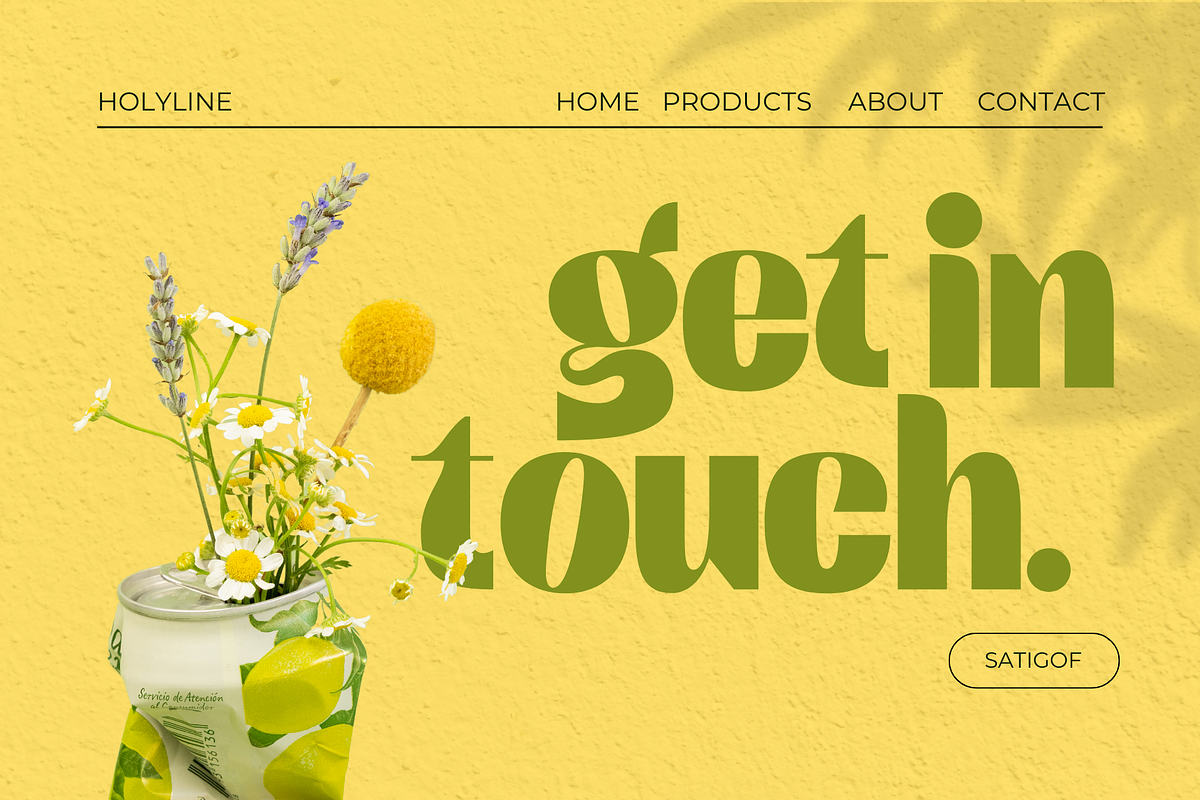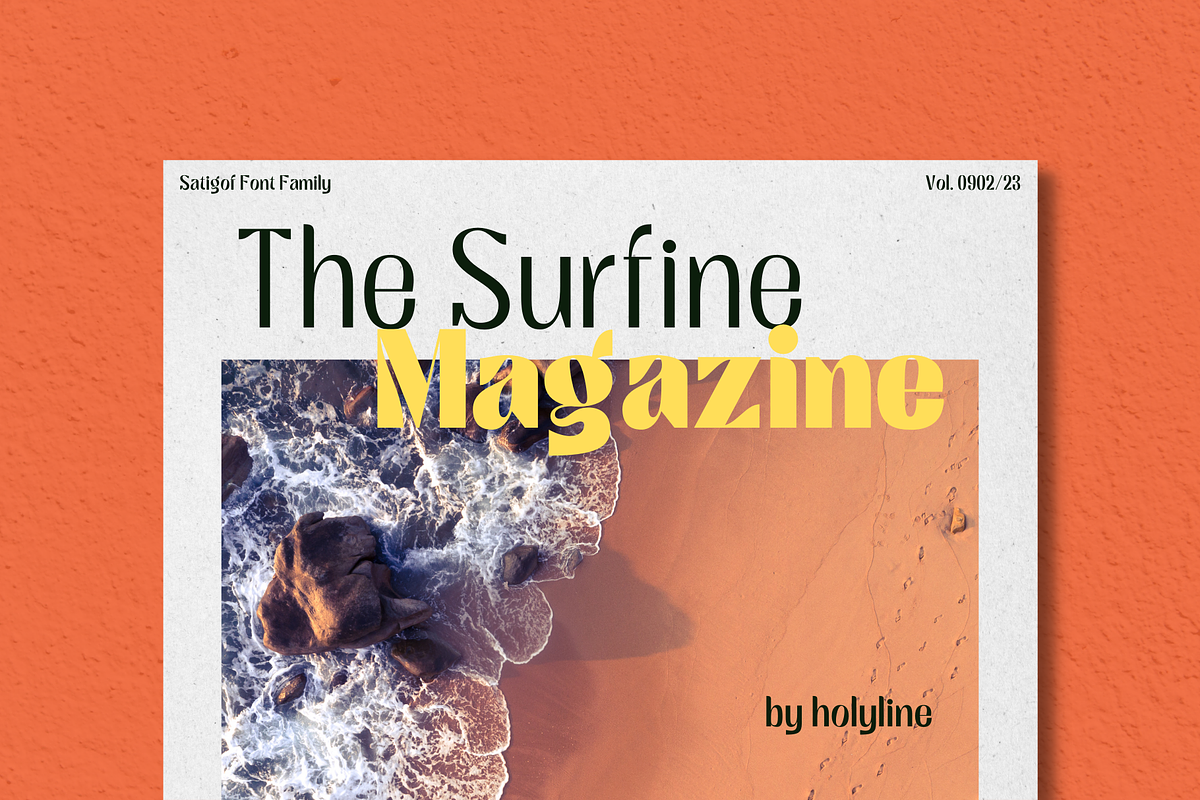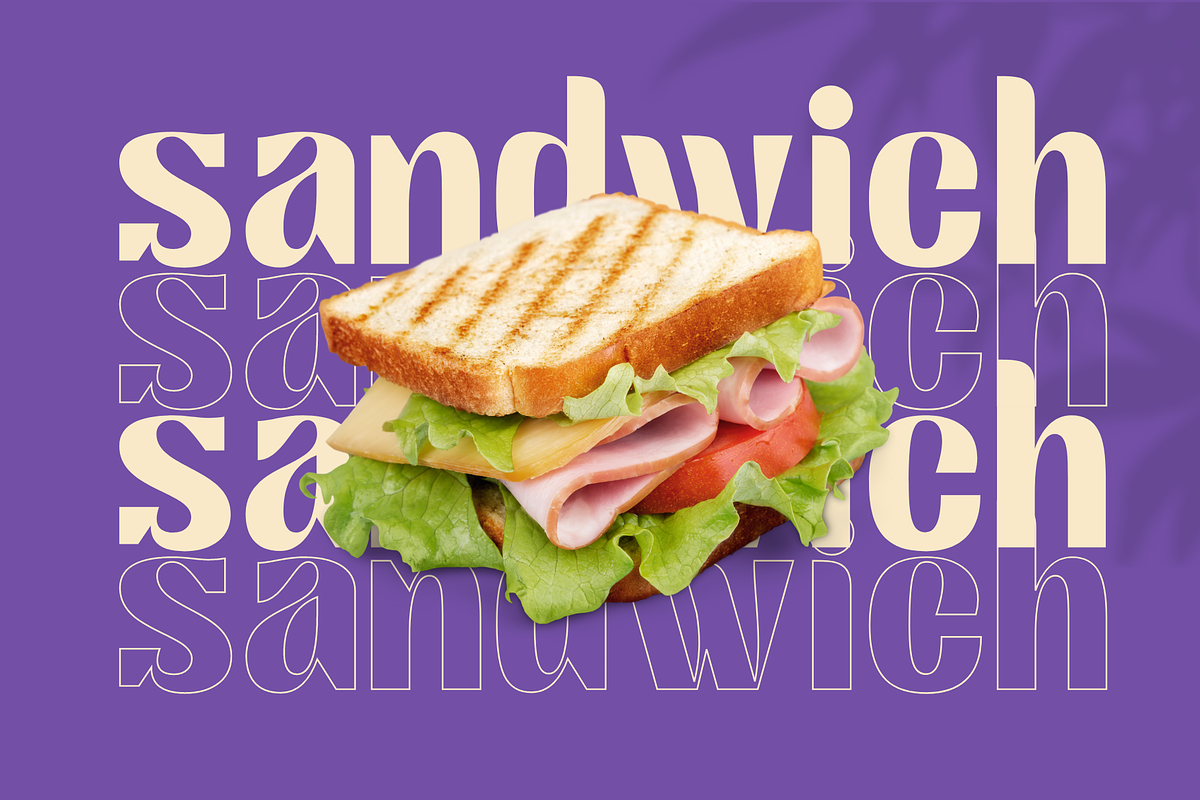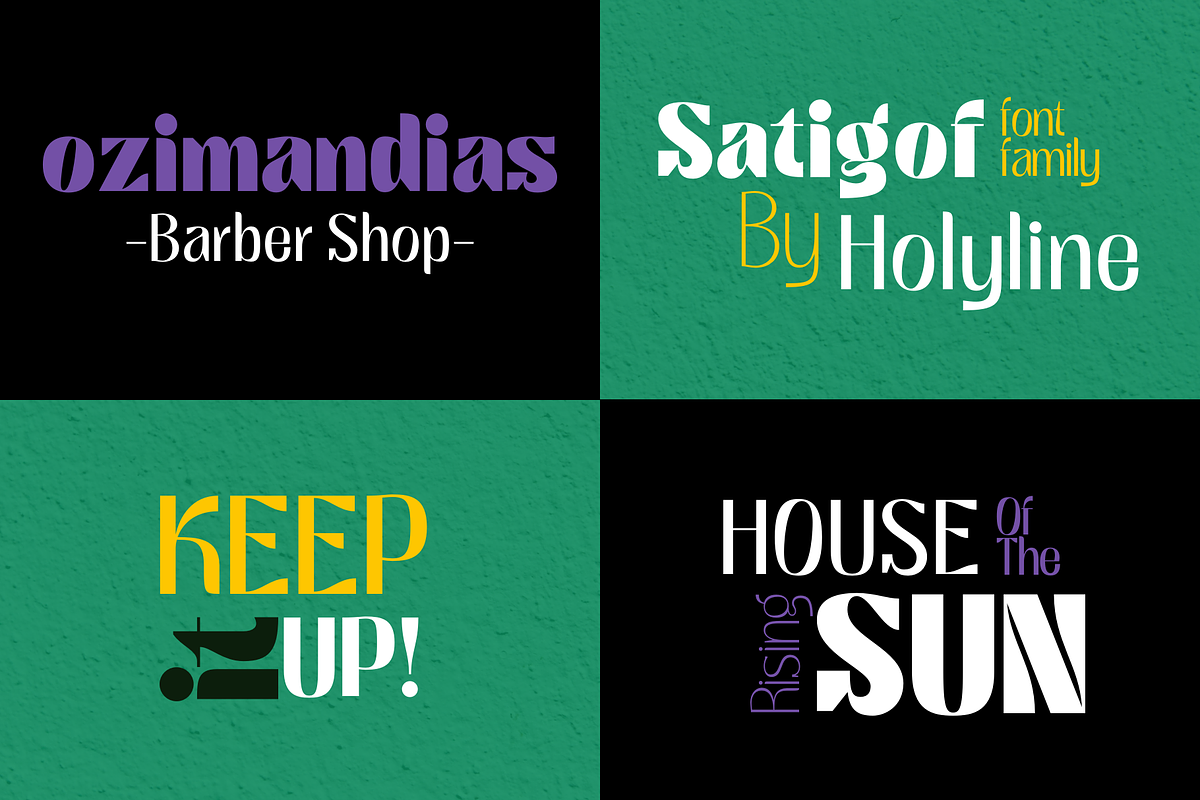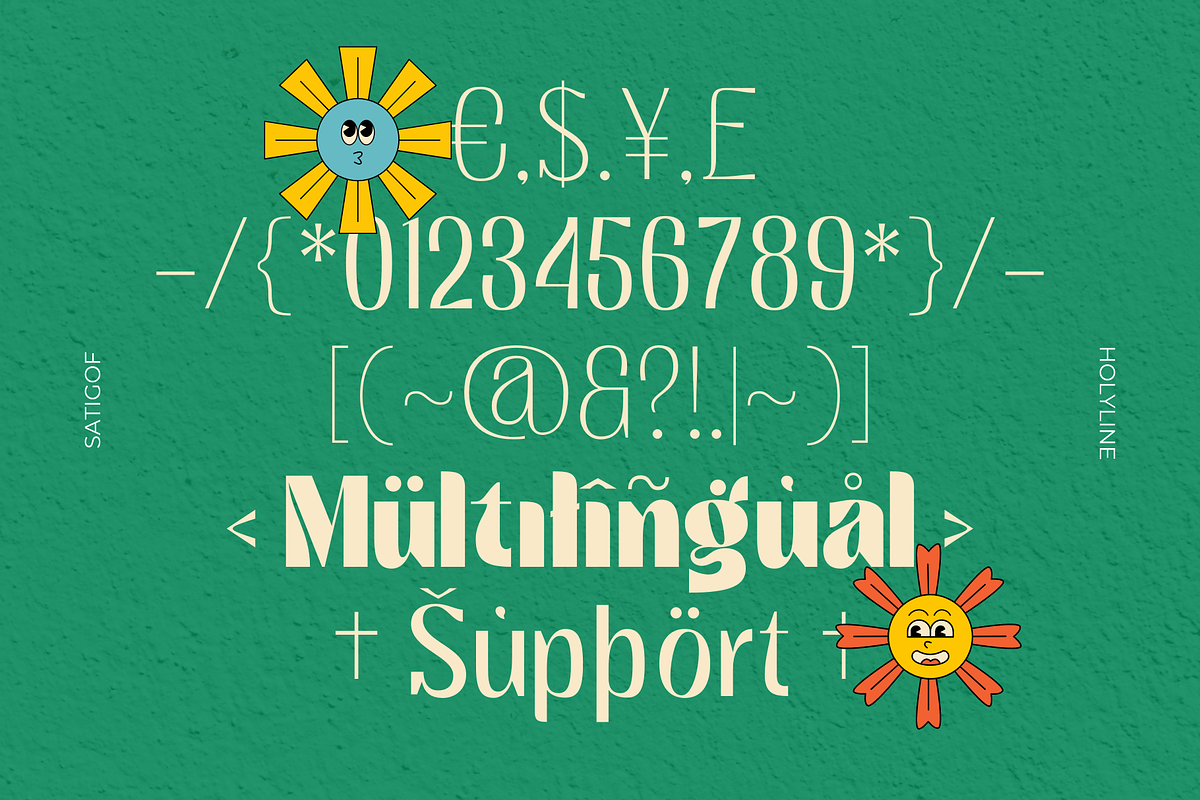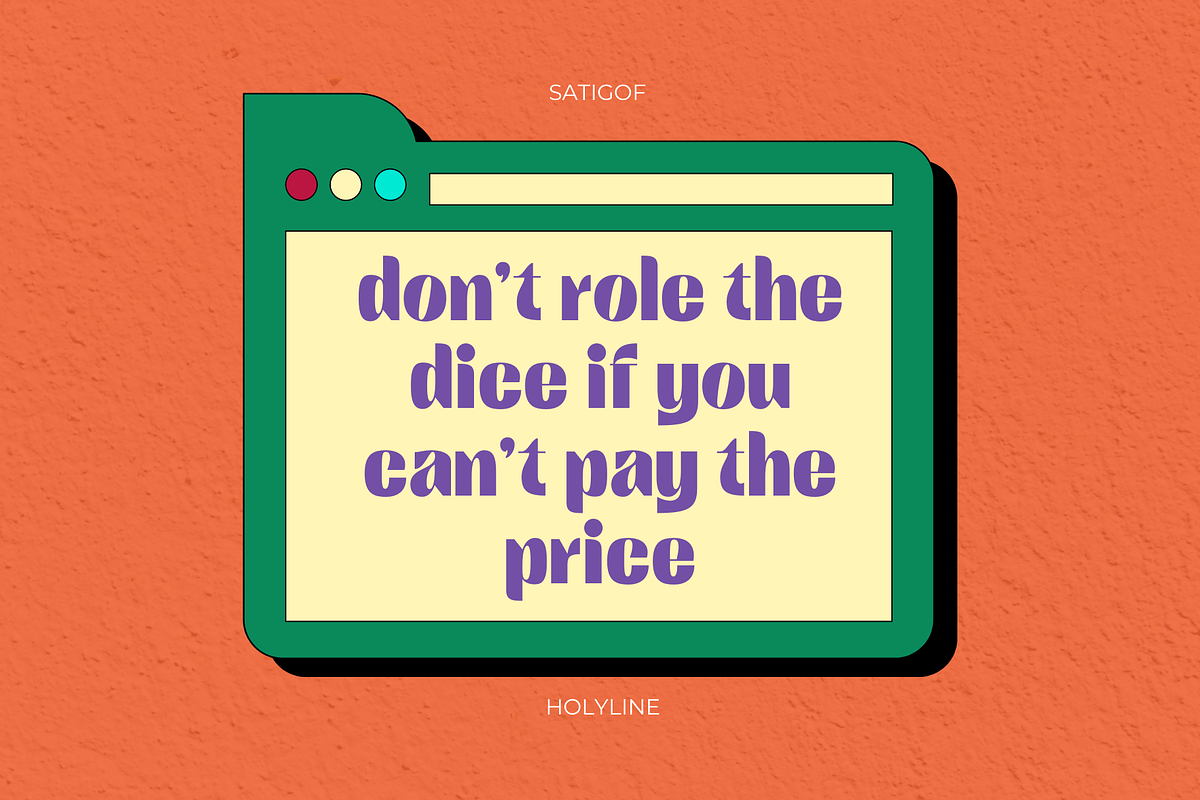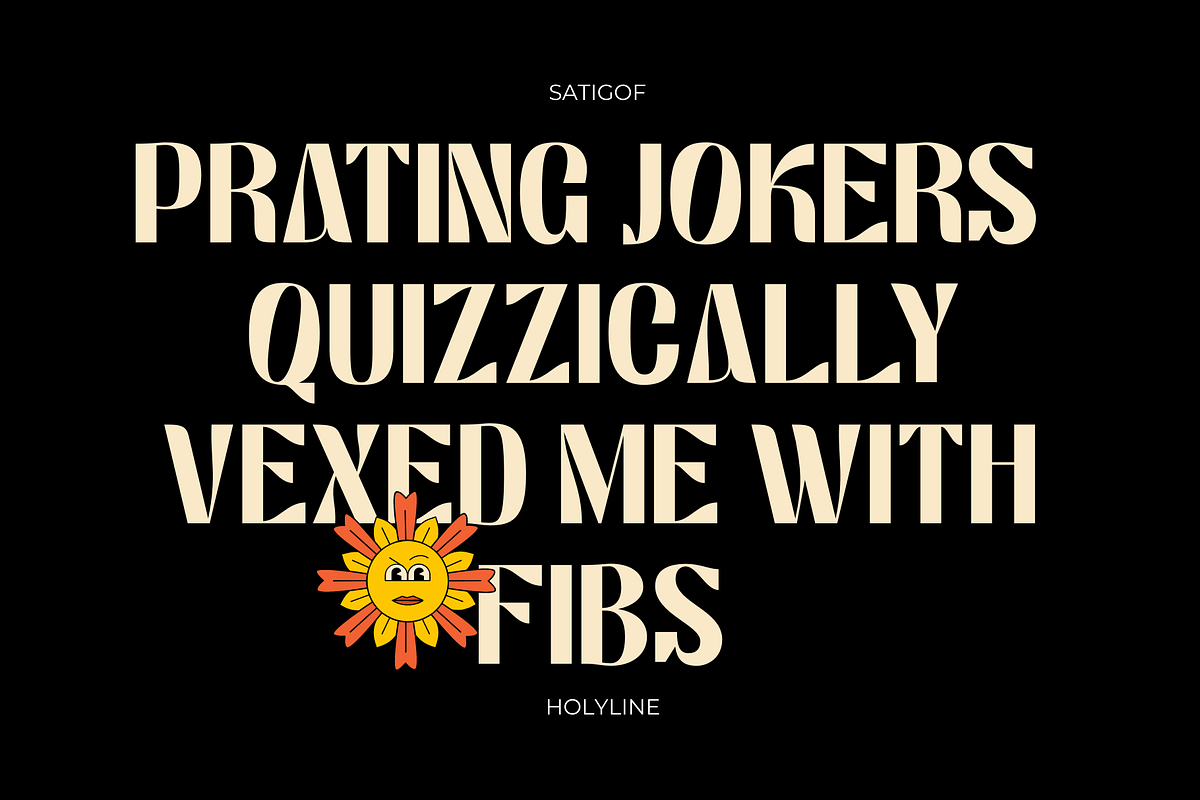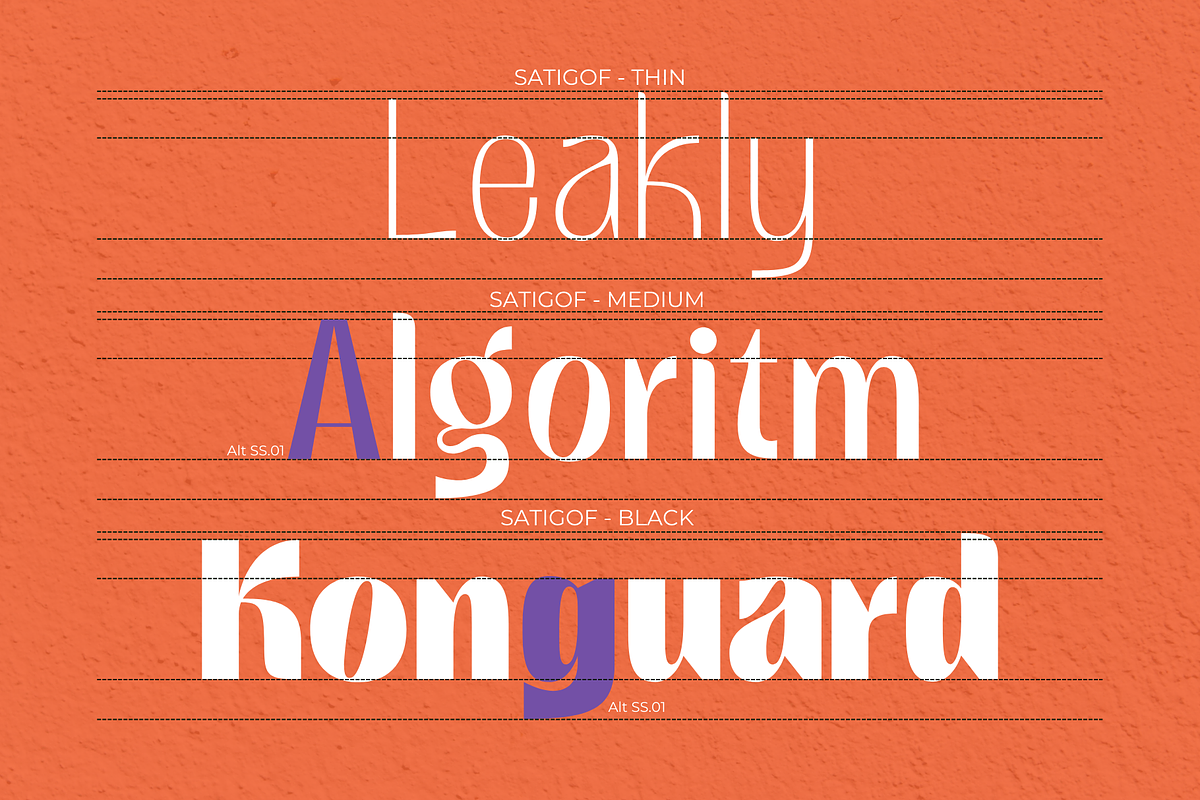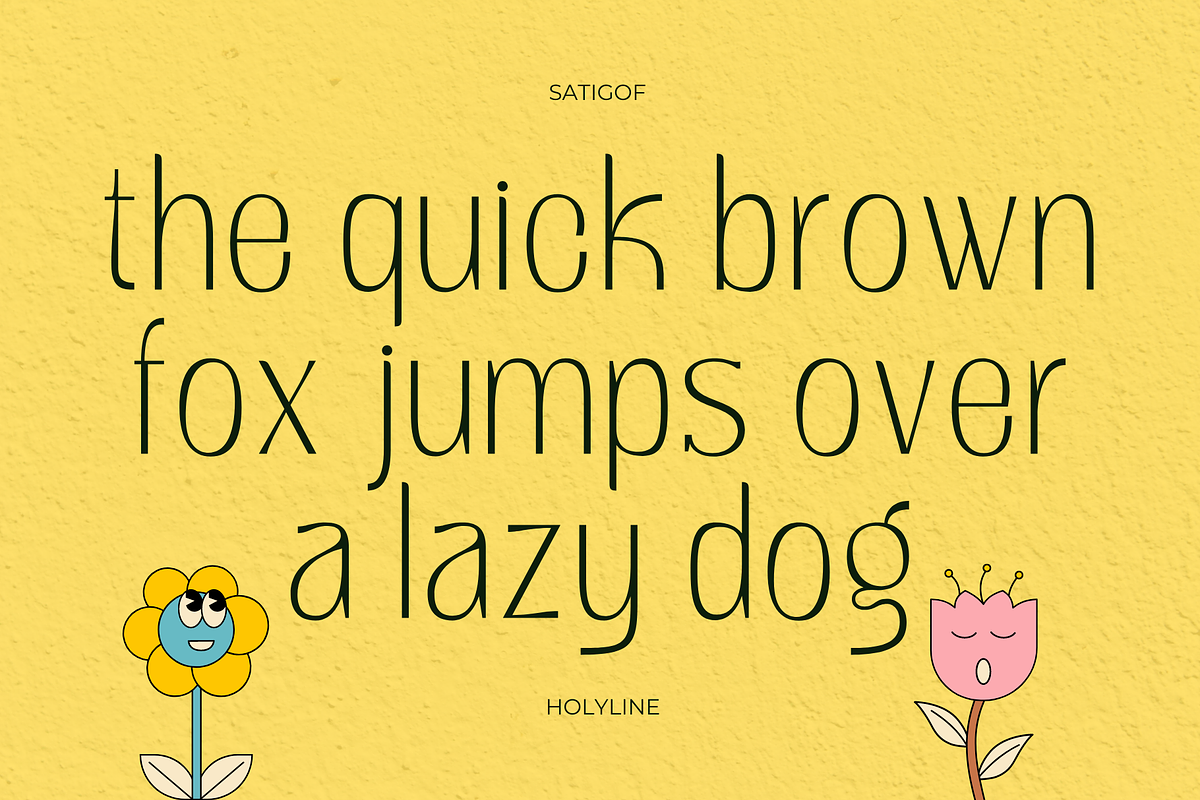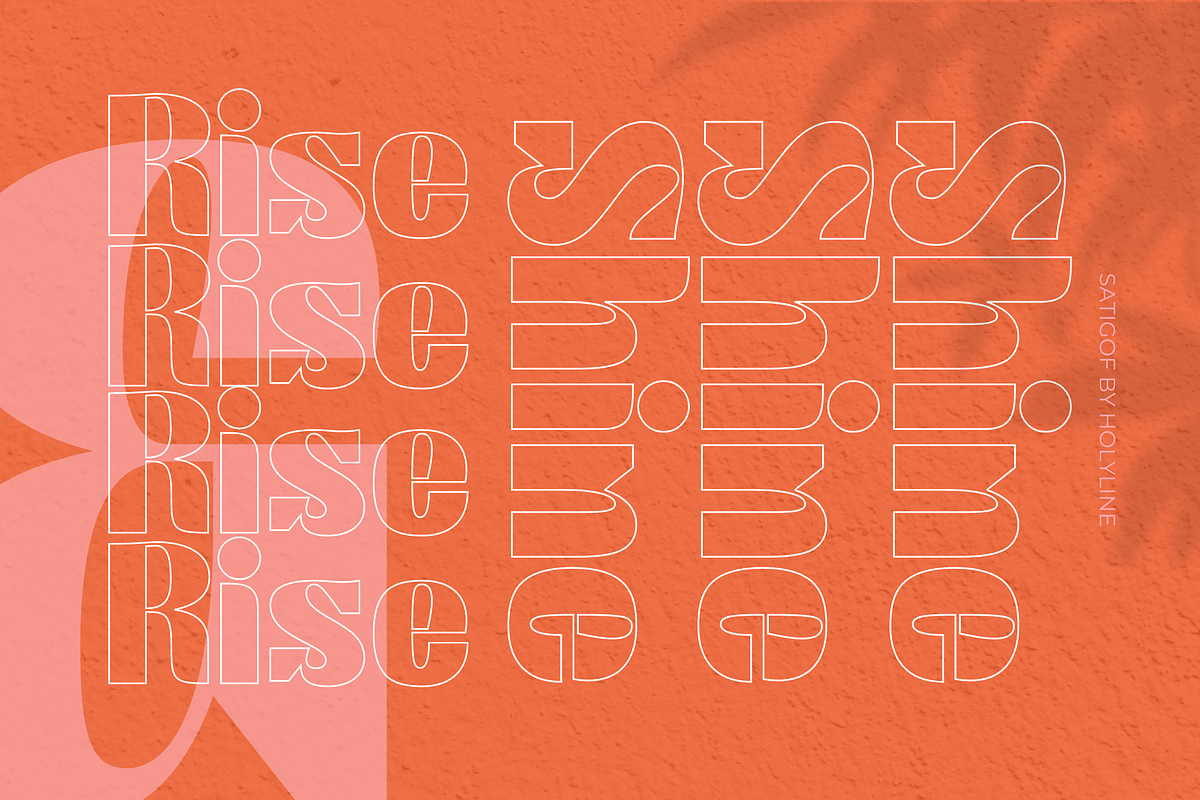
Satigof - Display Family
Satigof by Holyline is a playful sans serif font family, This font very playful and unique comes in nine weight, thin to black . It's very unique, fancy, playful very easy to combine with multiple design style. Satigof perfect for headline, sub headline ,custom logo,packaging, quote, invitations, watermark,social media posts, label, anything for your creativity and Satigof is perfect font if you want something new with your project, and you can pairing this font with the weight, its very satisfy. Happy creating!